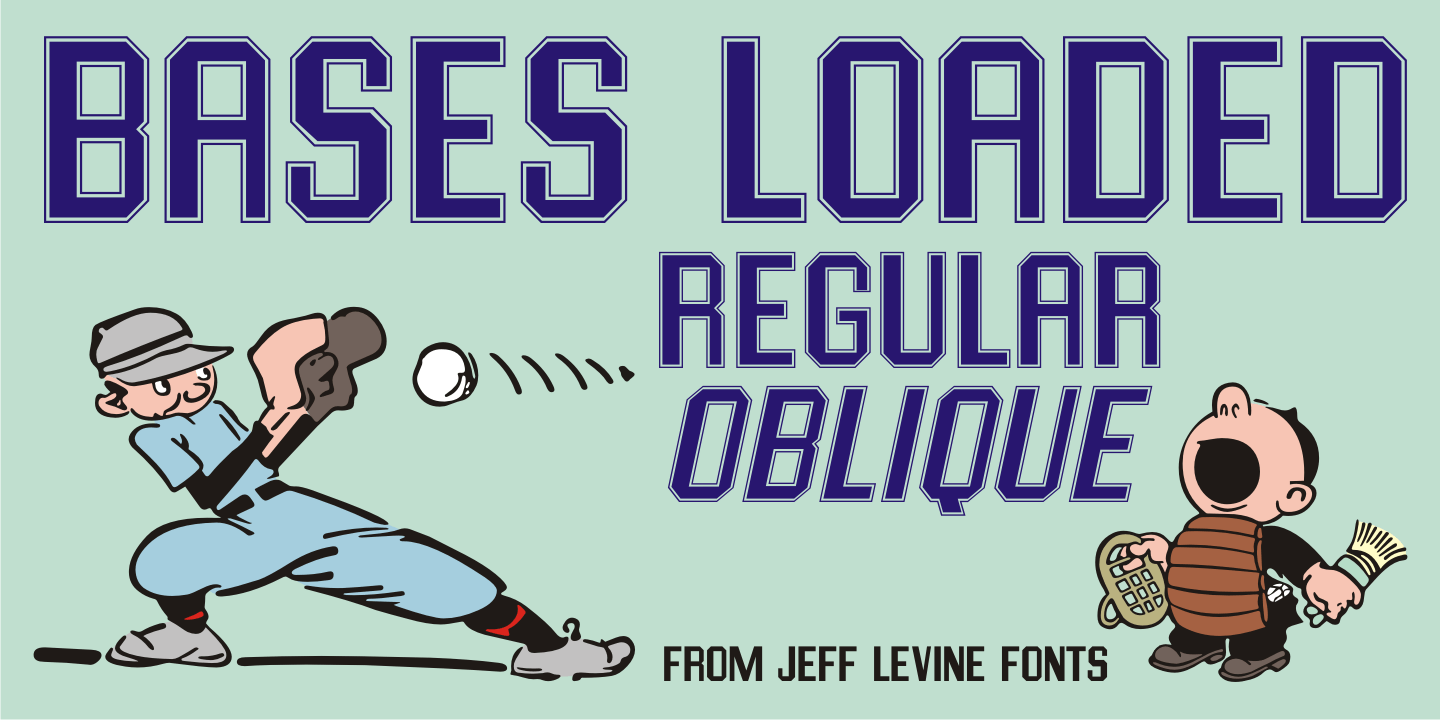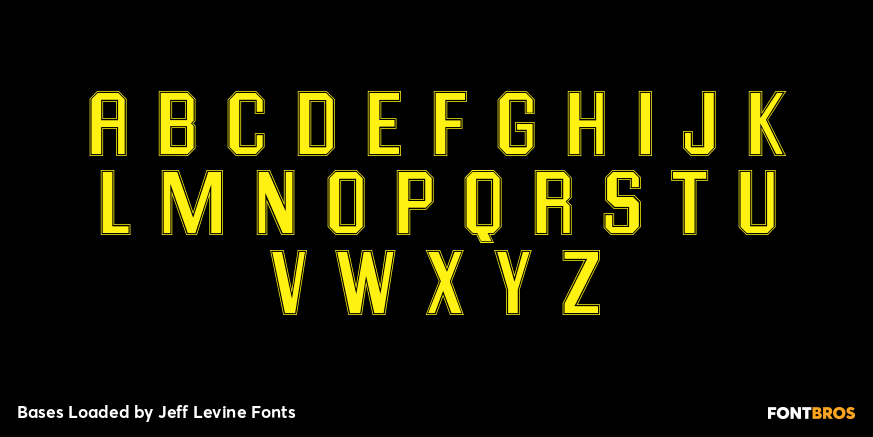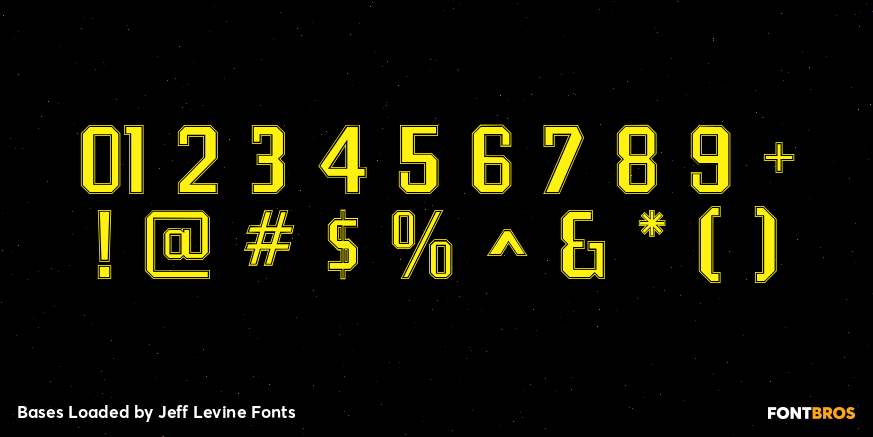
Bases Loaded
Bases Loaded JNL is a contour outline variant of Ebbets JNL, which was in turn a stylized variant of the retro-inspired Base Runner JNL. The design is available in both regular and oblique versions.
Bases Loaded by Jeff Levine Fonts